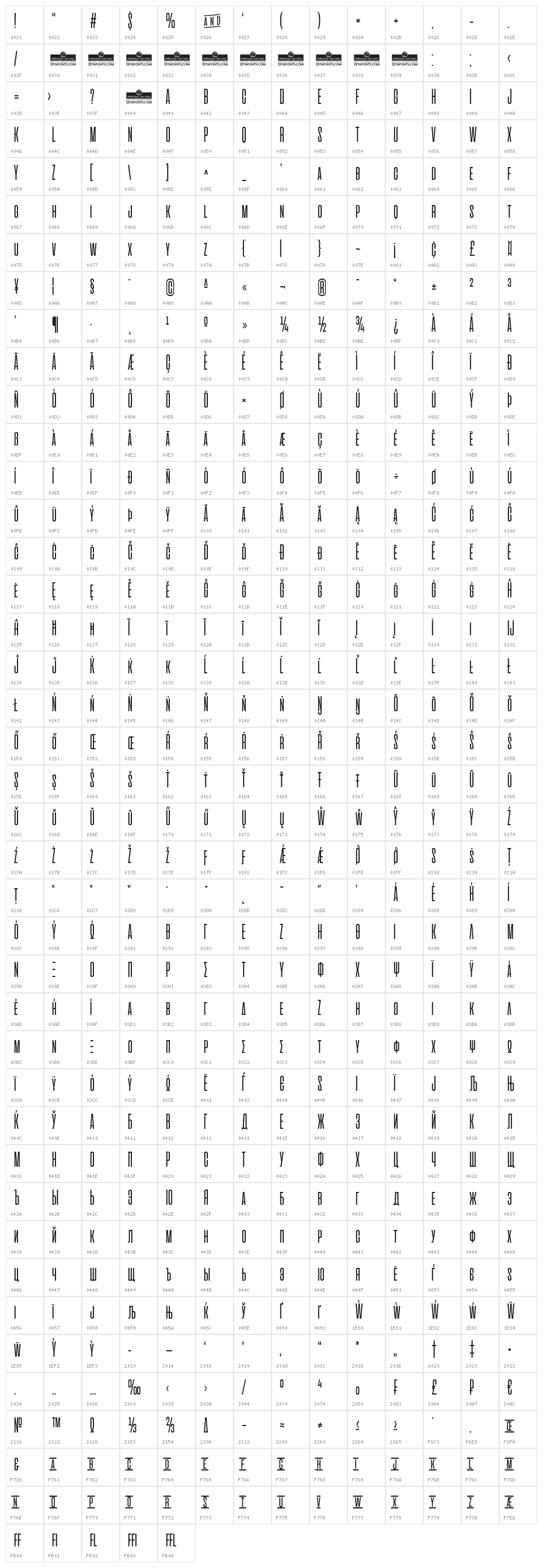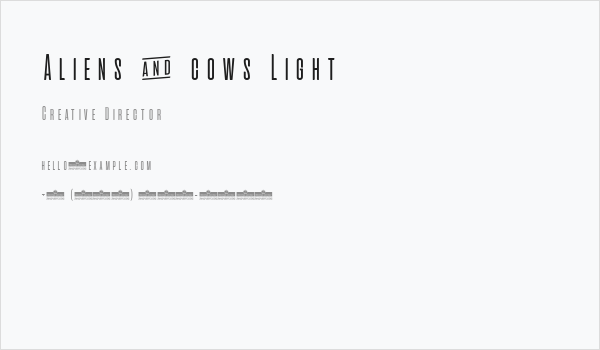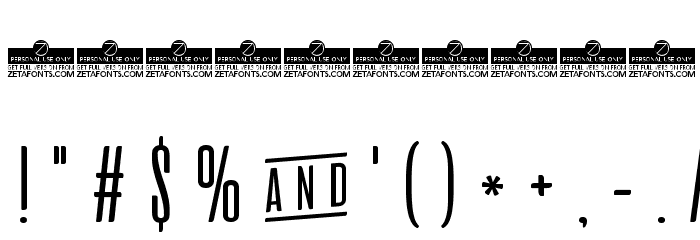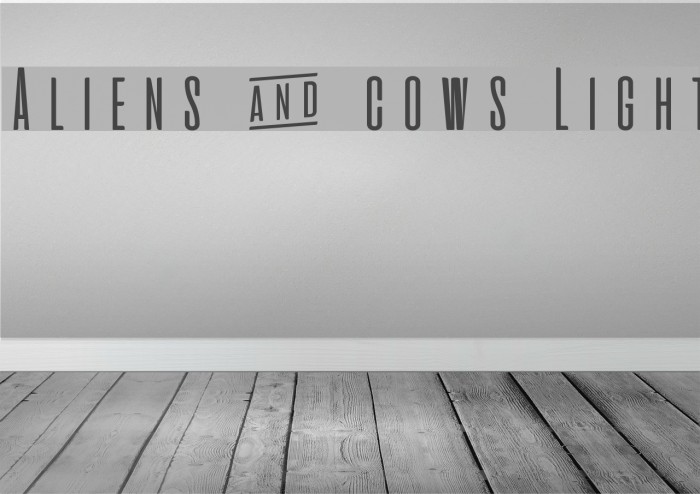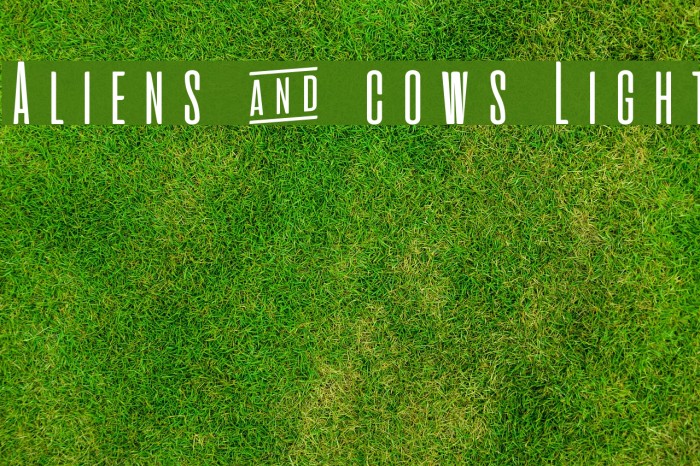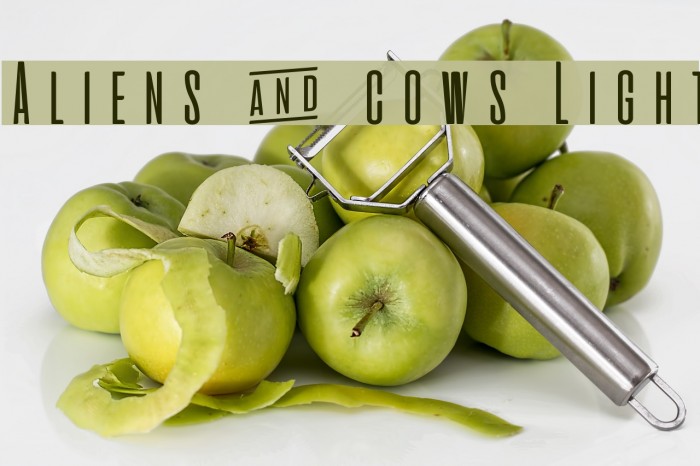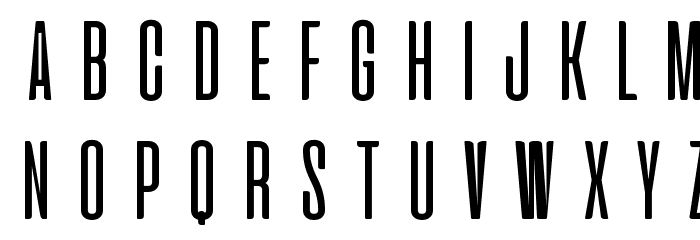
Aliens & cows Light Font
Aliens & cows Light Description
This font features a tall, narrow design with a modern and sleek appearance. The uppercase and lowercase letters are consistently elongated, giving it a distinctive and stylish look. The characters are uniformly spaced, contributing to its clean and orderly presentation. The font's vertical emphasis is complemented by slightly rounded edges, adding a subtle softness to its otherwise sharp and geometric structure. The numerals and special characters maintain the same elongated form, ensuring a cohesive visual identity across all elements. This font's unique style makes it suitable for projects that require a contemporary and sophisticated touch.
| Proposed Projects | Ideal for fashion branding, modern posters, editorial headlines, and minimalist design projects. |